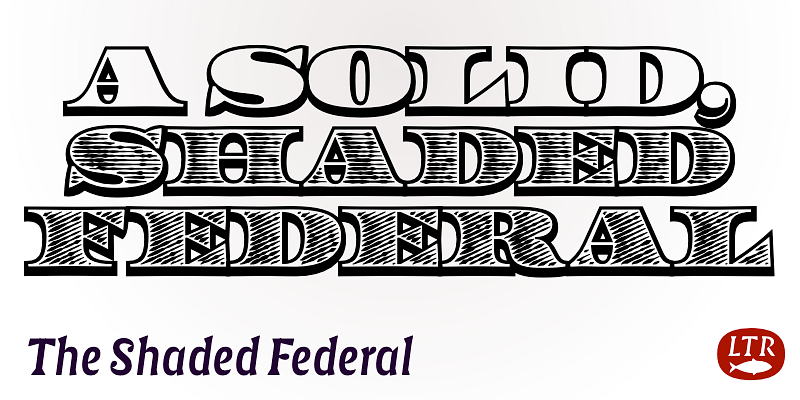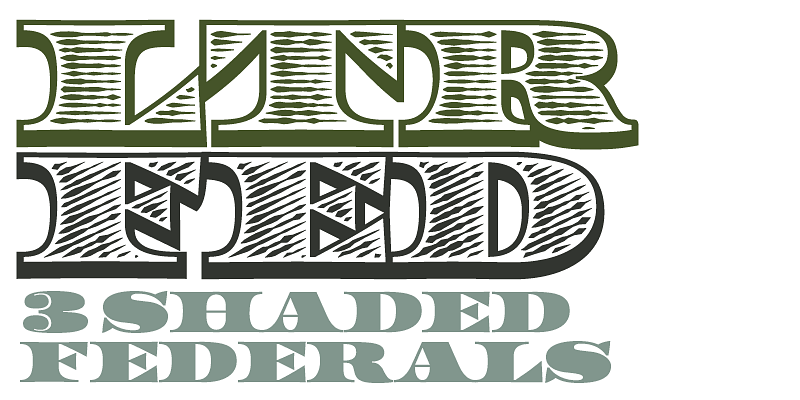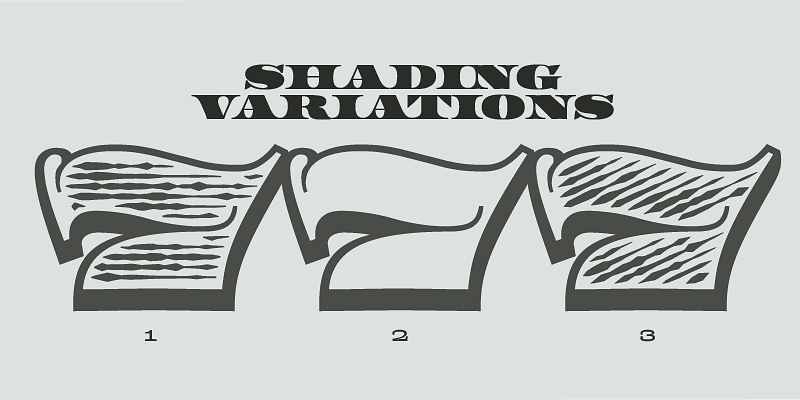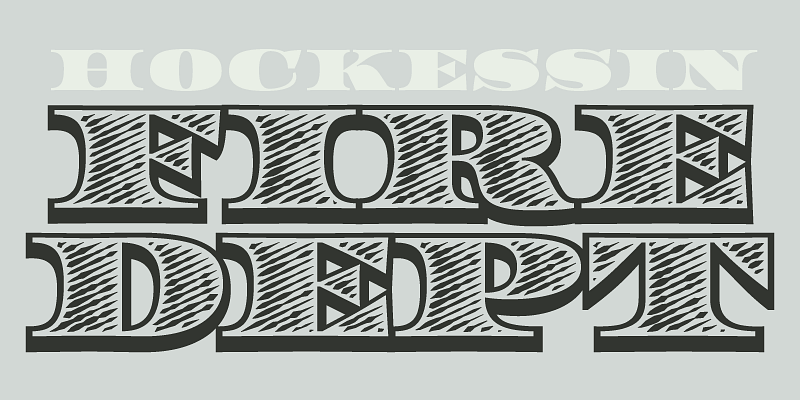
Federal Bureau is the one-stop alternative to complex layering. Enhanced with a robust bevel, the three versions differ in content: horizontal shading, diagonal shading, and no fill. The most ornate of the Federal designs in circulation on this platform, use them to add gravitas to all your documentation.